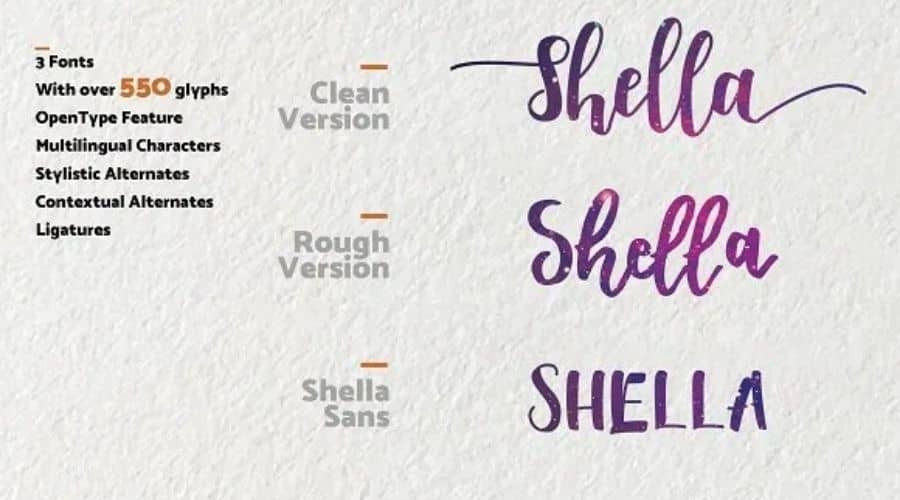
Shella Clean Font Free Download
Introducing, Shella Clean Font! A beautiful Script and Handwritten font. Mas Anis developed and shared the Font. Shella Script Font is a hand-brushed typeface duo with three different font styles: playful, warm, and comfortable. Each word is made unique by combining the Shella Clean typeface with the Shella sans or Shella rough font. Shella Clean is the ideal typeface for all of your whimsical designs. Regular is the subfamily.
Shella Clean Font is a Personal Use Only Font. Starting with uppercase, lowercase, Numeric, and certain Special character and alternatives, fonts are available. This typeface is free to use for personal purposes. You can directly access all of the wonderful glyphs because this Font is PUA encoded! It also includes, among other things, ligatures and alternate symbols.
The Font can be used for a variety of purposes, including modern invitation design, branding, stationery design, blog design, modern advertising design, invitation, Art Quote, Home decor, Book/Cover Title, Invitation, special events, birthdays, custom mugs, pillows, t-shirts, and any brush lettering needs. Shella Clean is also suitable for branding projects, homeware designs, product packaging, or just as a classy text overlay on any backdrop image.